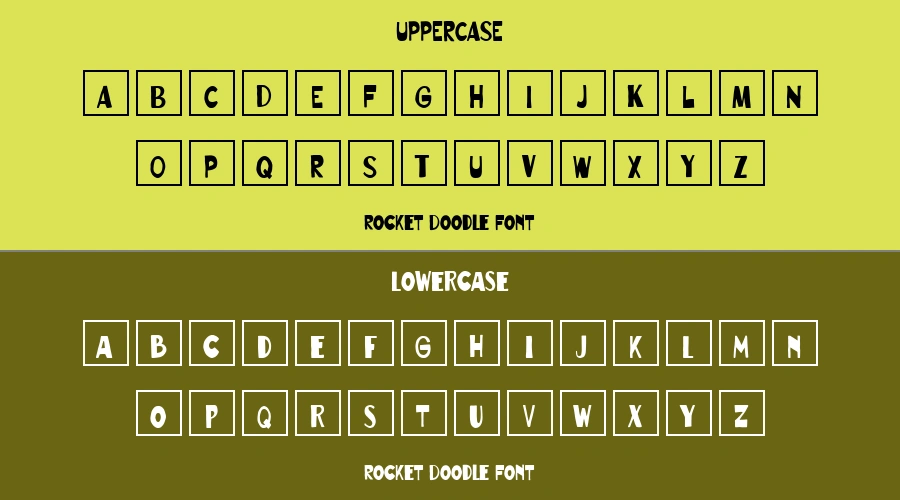
About Rocket Doodle Font
Designed with precision, Rocket Doodle Font merges impactful forms with precision in every character. This versatility makes it particularly effective for heritage brands, where precision and creative impact directly impact communication quality. Each letterform demonstrates meticulous craftsmanship.
Technical excellence shines through elements like convex bowls and inferior figures, enhancing typographic versatility. In exhibition materials settings, Rocket Doodle Font proves its worth through superior OCR compatibility. The thoughtful execution of stroke contrast and engineering heritage ensures professional results.